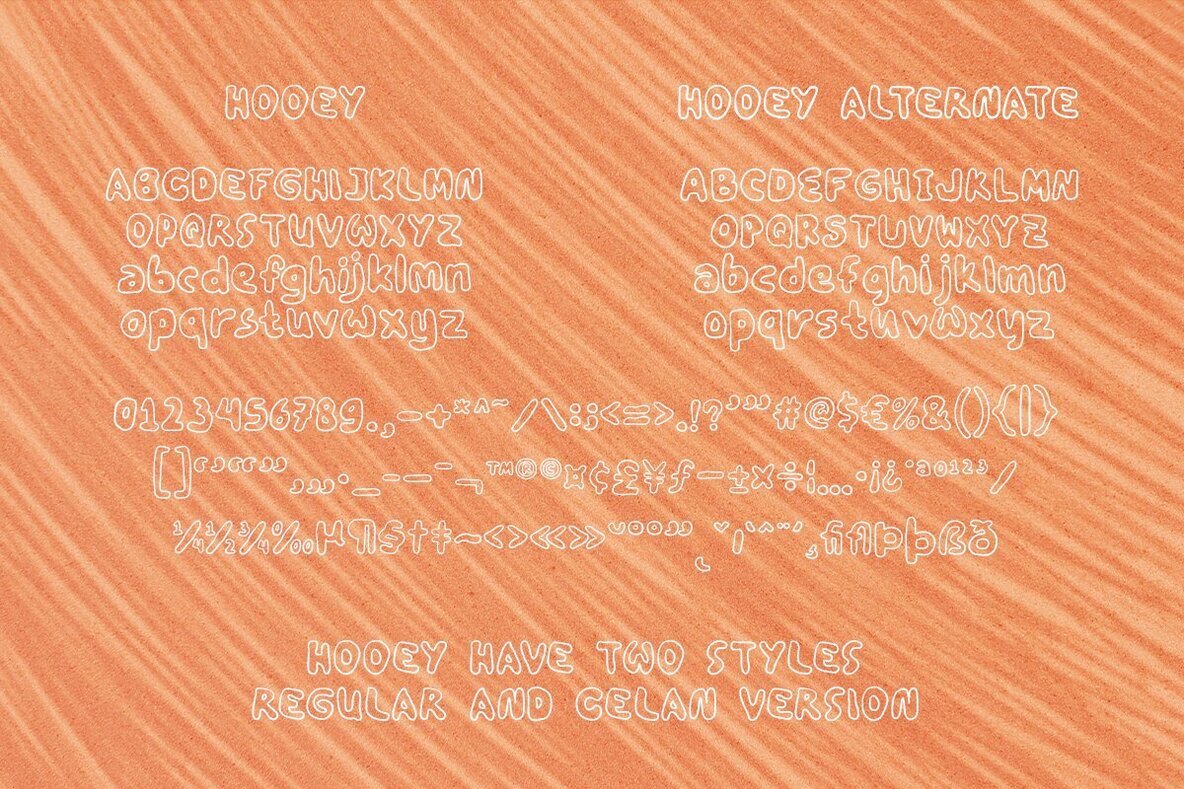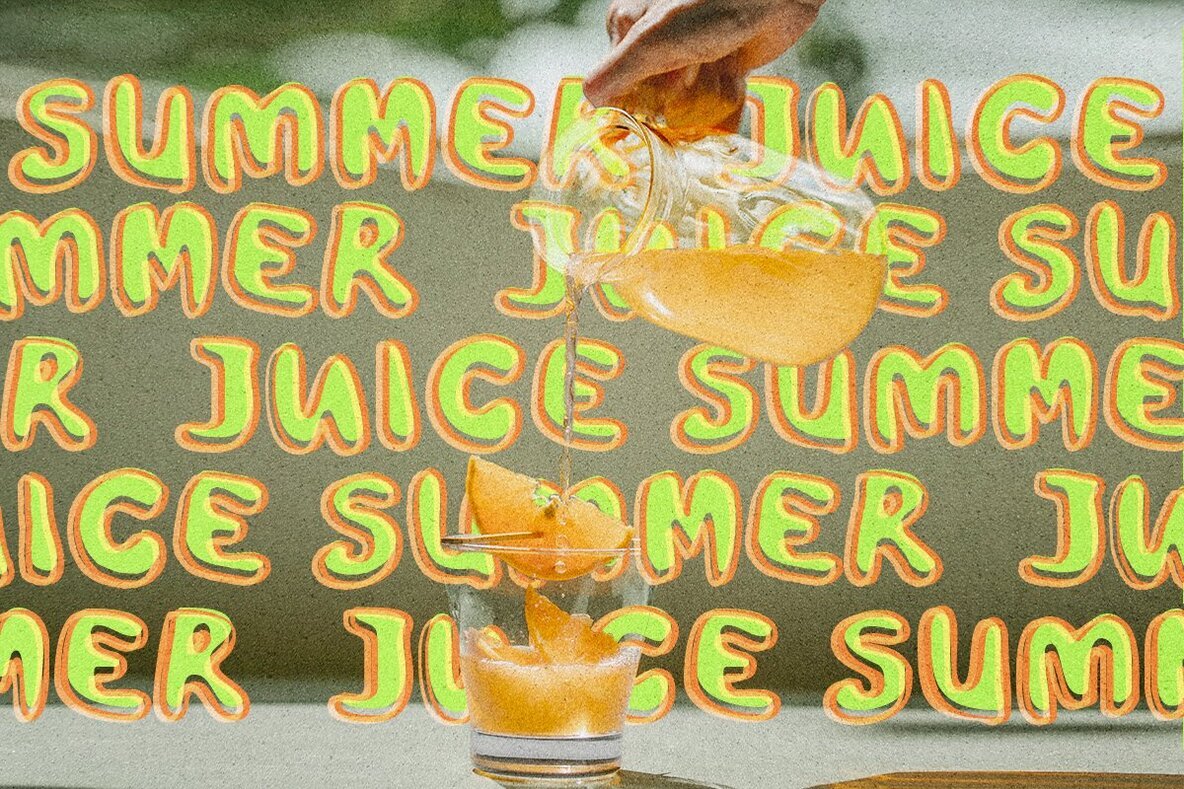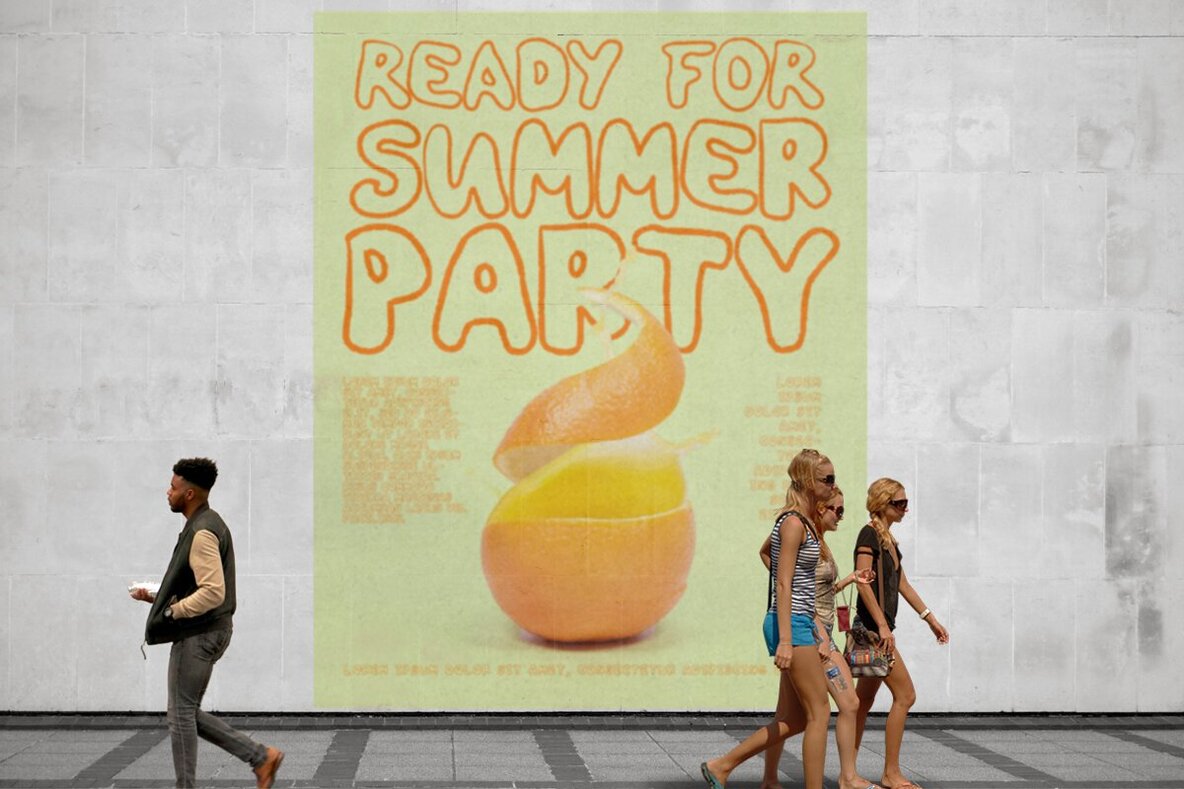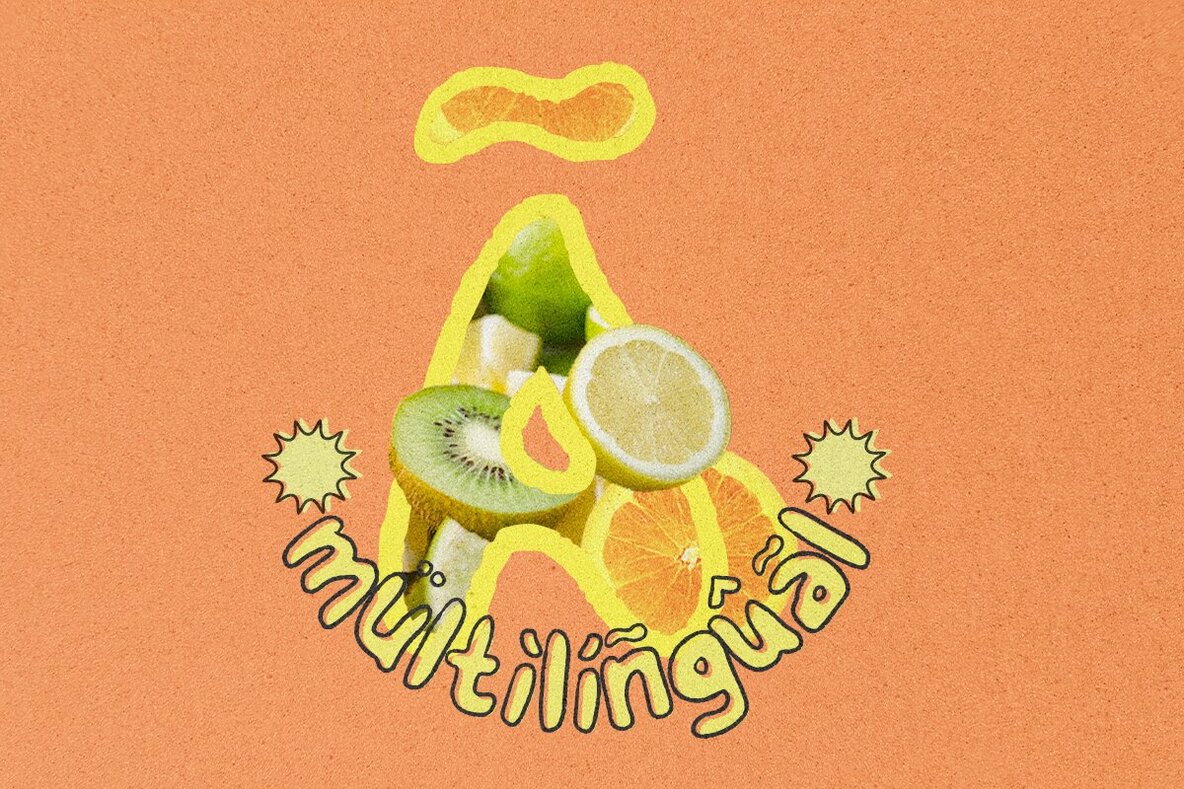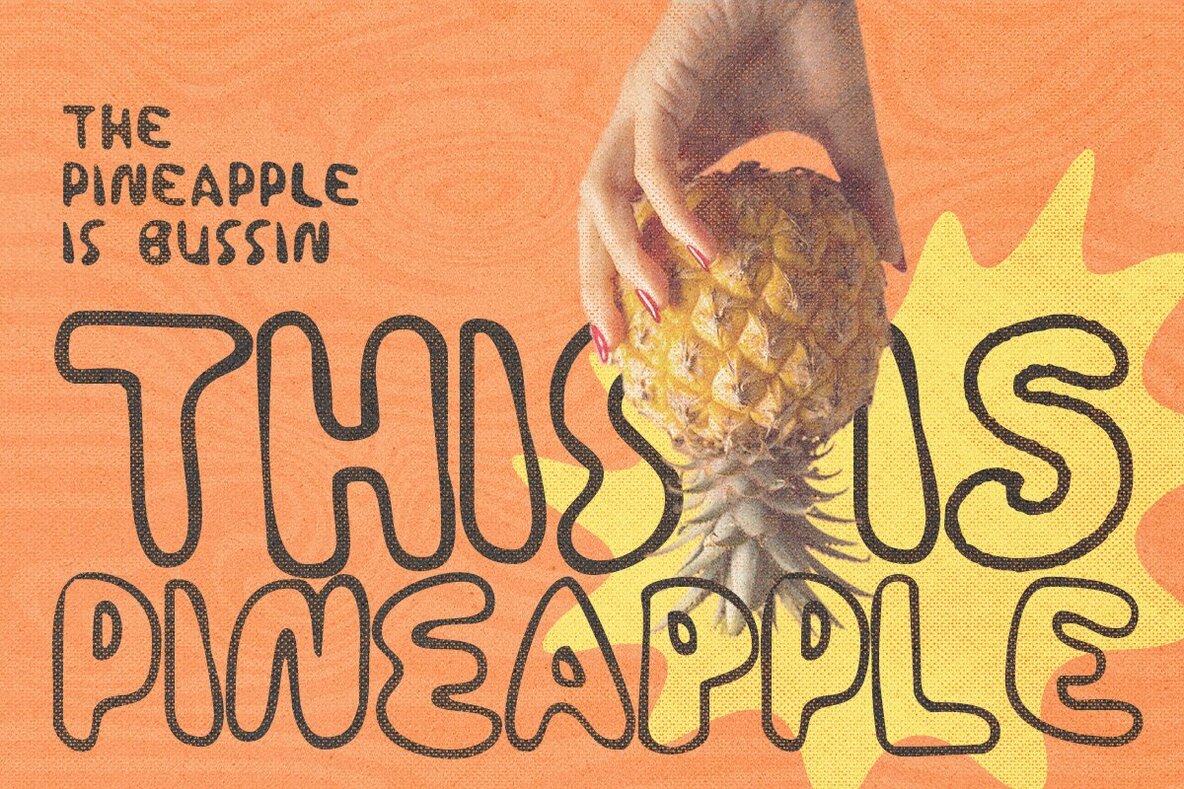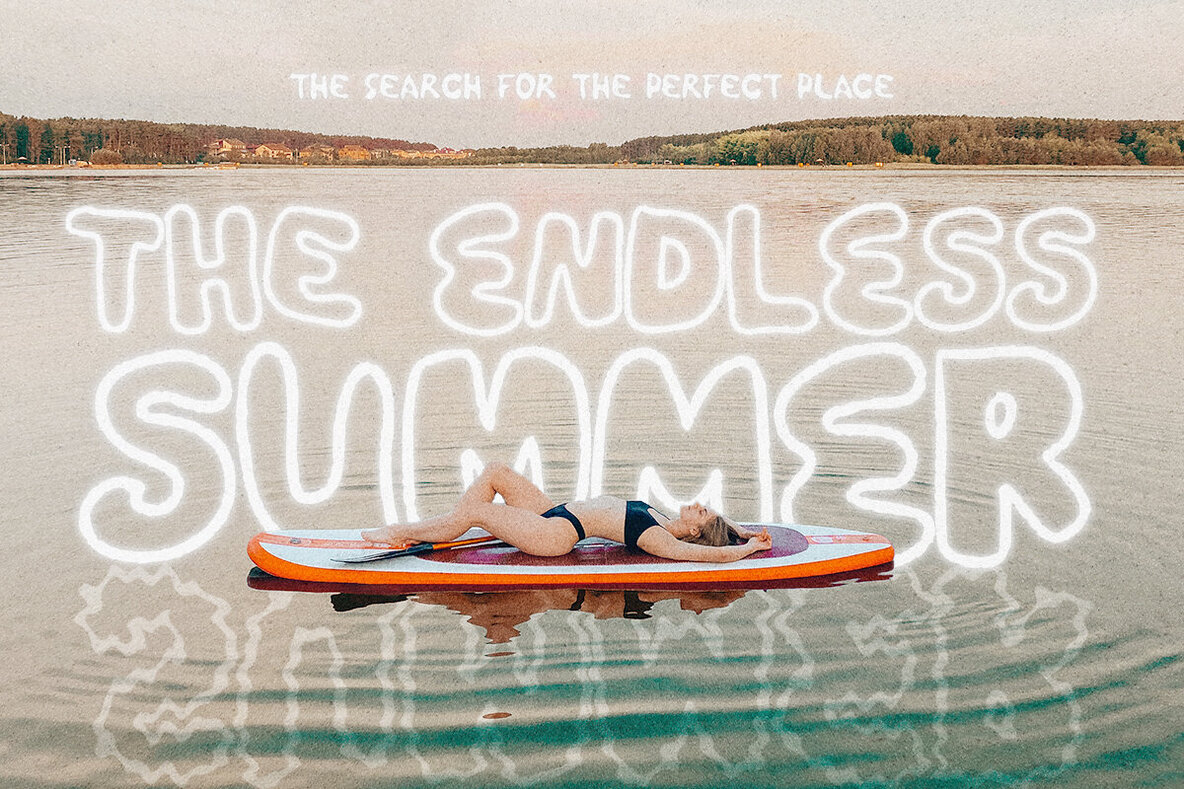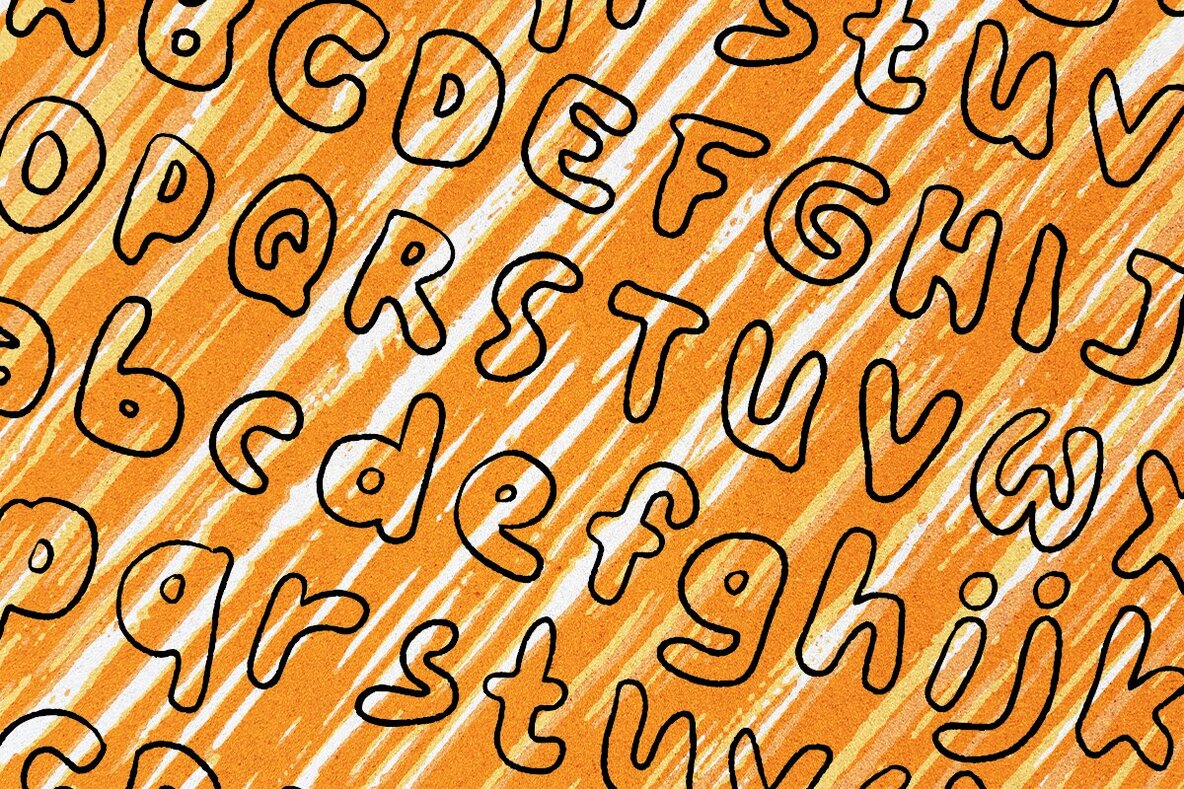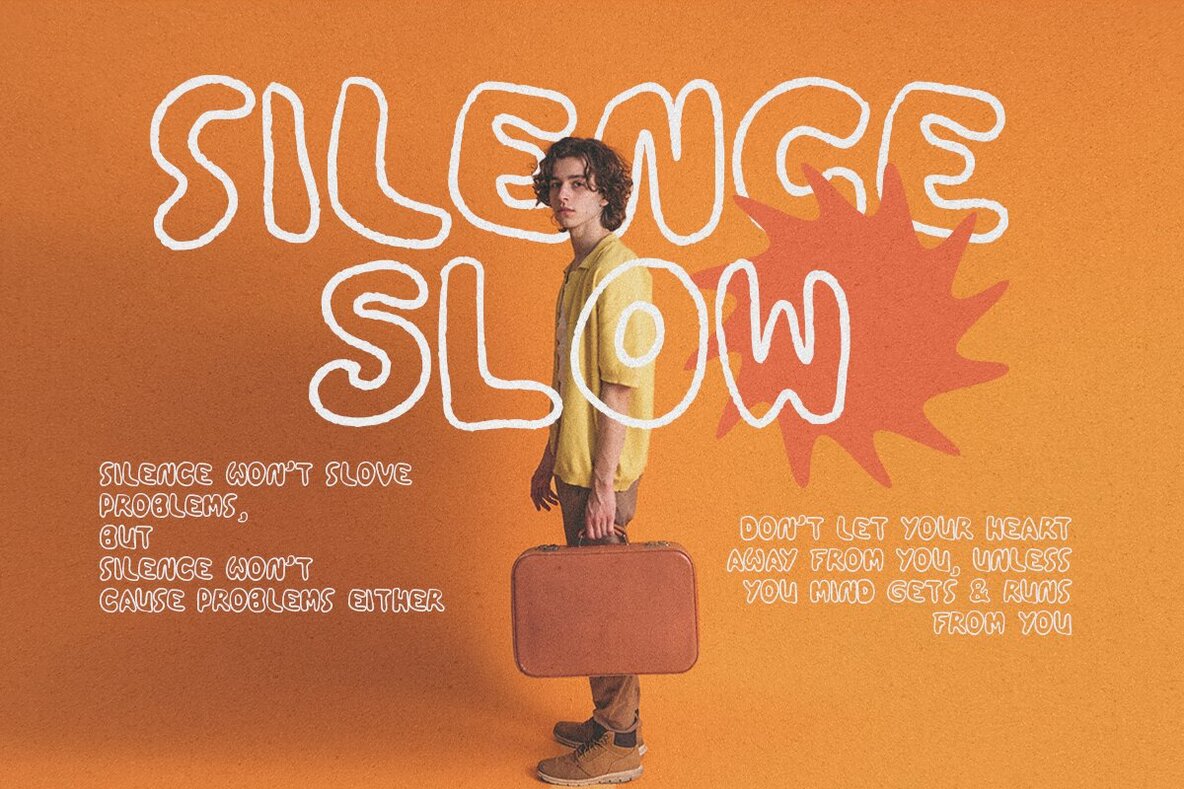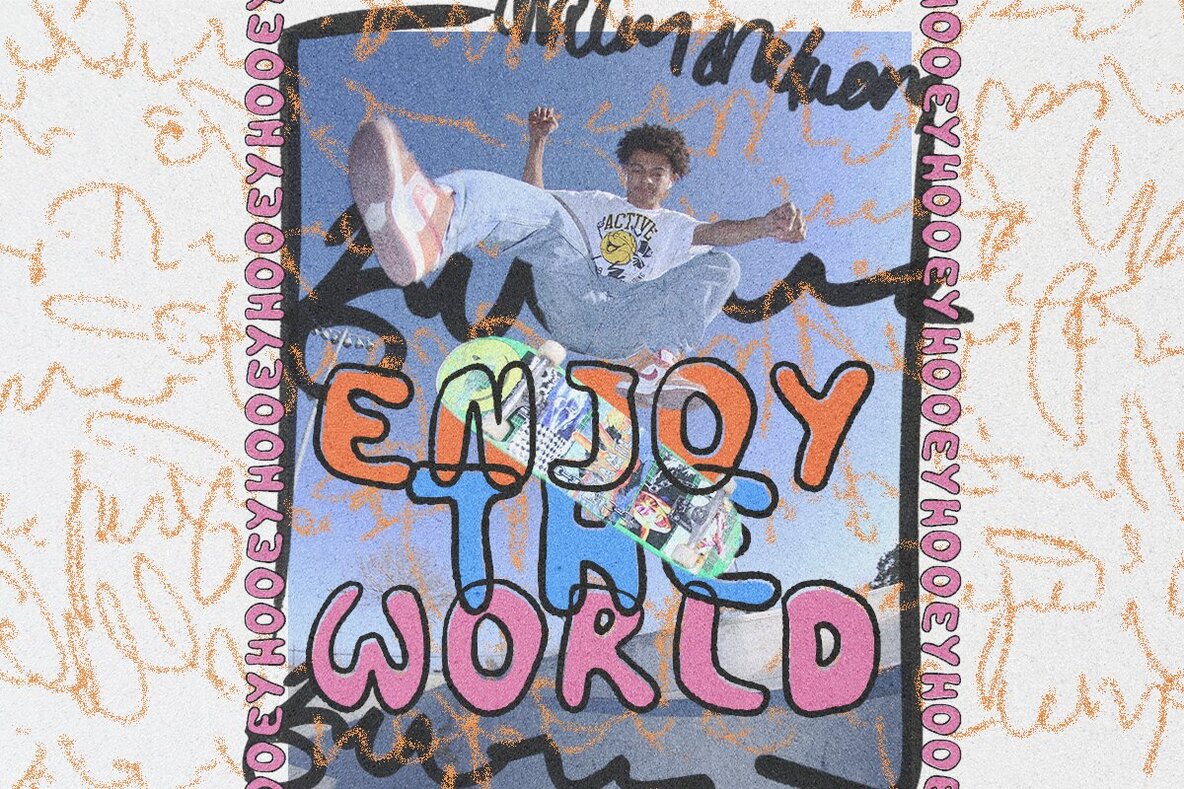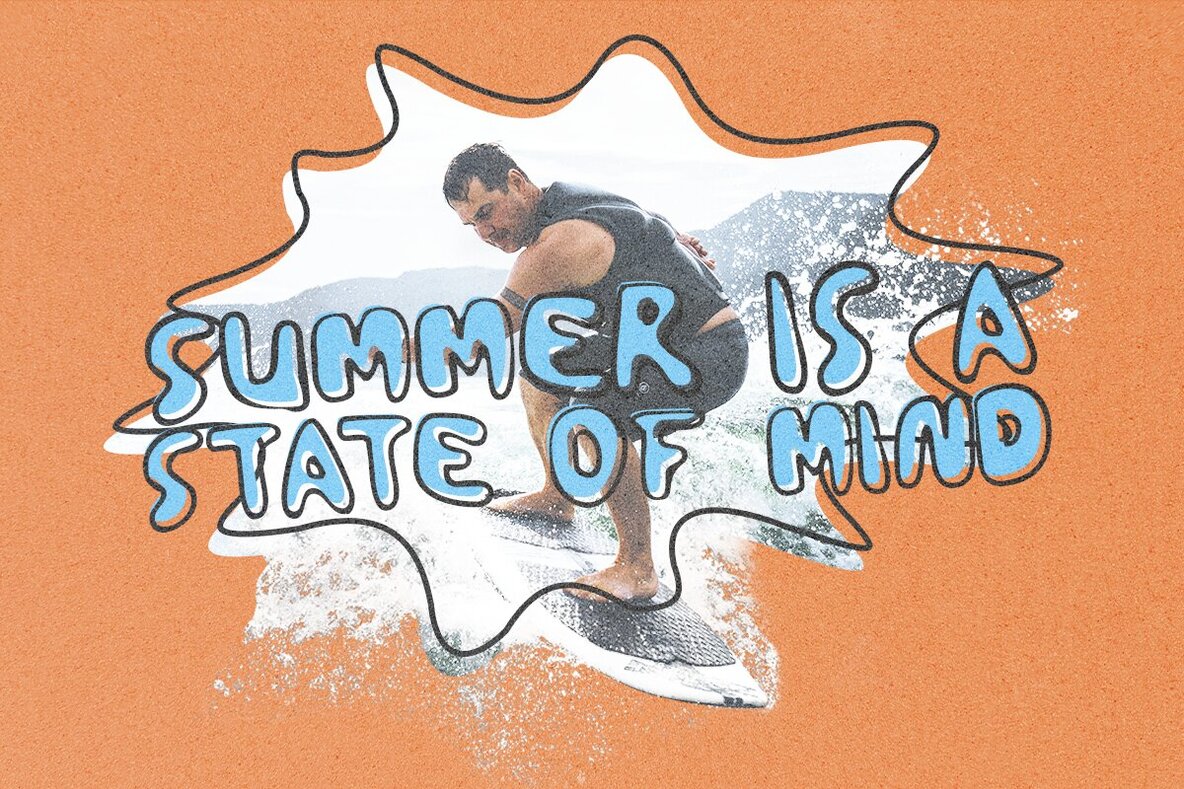
Hooey Font
Hooey Regular
Hooey Clean
Get ready to rock your designs with the brand new Y2K Handdrawn Outline Font, HOOEY! HOOEY - A fun Y2K - inspired monoline handwritten bubble font in two styles, regular and clean versions! I mixed a bit of texture and a bit of goopy-ness to create a wonderfully imperfect and unique font This font also has a unique alternative, which has two uppercase and lowercase versions so you can choose which one is good to use in your projects for extra handmade goodness. Also great for logos, quotes, art, headline, branding, and more!